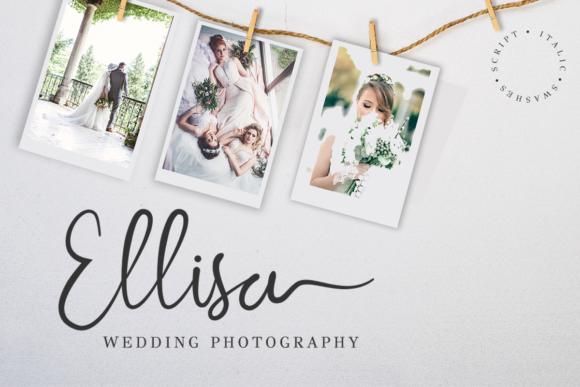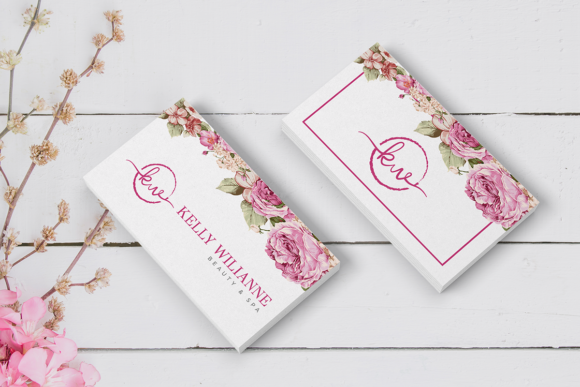
Kalila Script Font
db-ku.com - Script & Handwritten -- The Kalila is a modern calligraphy font with handwritten, sophisticated flows. It includes short lowercase beginning and lowercase ending heart swashes, which serve to connect two words or letters (This is so perfect for invitations, monograms, etc) and long lowercase beginning and ending swashes.